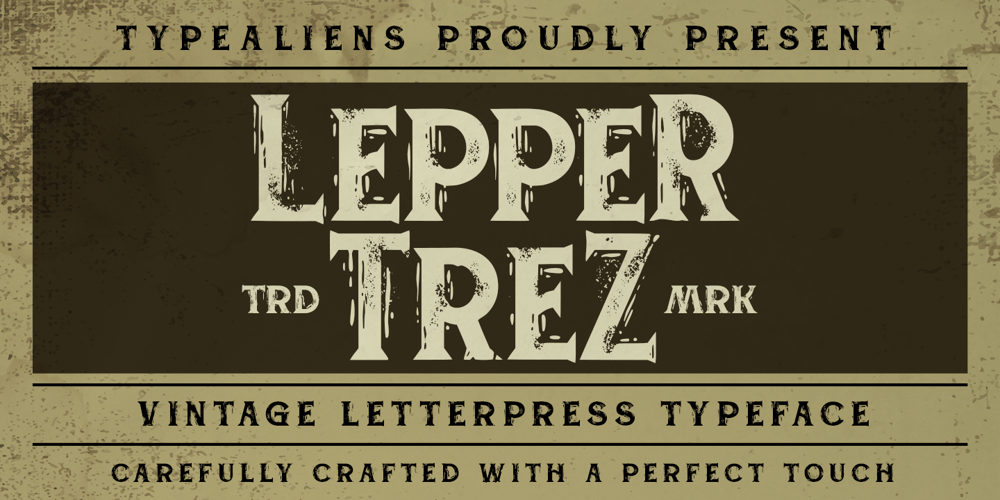
Leppertrez Font Family was designed by Ilham Wahyu and published by Ilhamtaro. Leppertrez contains 1 styles and family package options. LEPPERTREZ is a font that is basically a classic serif font then to make it different from other serifs is to give the effect as if it were a letter on a letterpress machine, it will add a vintage impression because remembering that letterpress machines were the beginning of a printing press.To enable the OpenType Stylistic alternates, you need a program that supports OpenType features such as Adobe Illustrator CS, Adobe Indesign & CorelDraw X6-X7.Cheers!